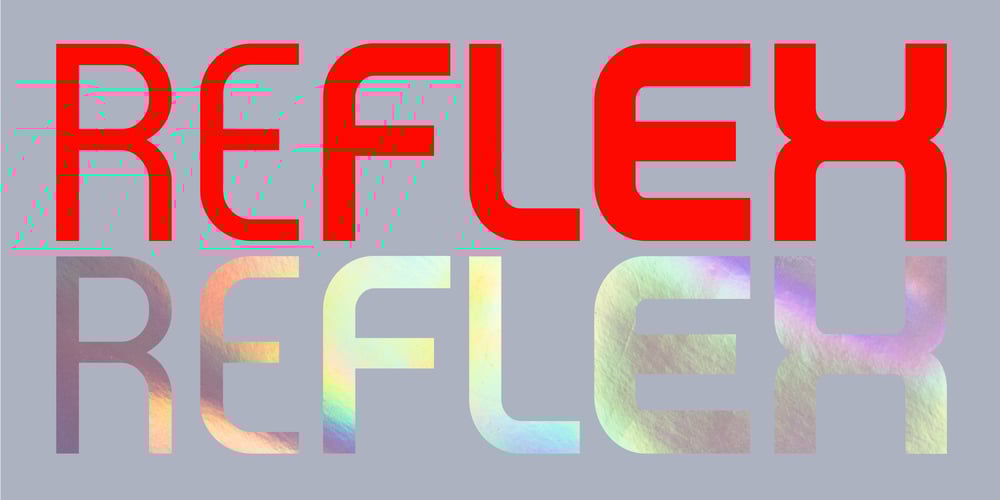
Reflex Font Family was designed by Alejandro Paul and published by Sudtipos. Reflex contains 19 styles and family package options. Reflex update: Now in 18 styles and variable version.Reflex was designed as an alternative to many overused types found on the packaging of pop culture products. Taking its inspiration from Bauhaus design roots, even in its heavy weights it maintains a soft aesthetic that can transparently convey a message of newness and understanding, as well as clarity and evenness.The Reflex set comes with a wide range of linguistic support, at no extra charge, including characters for Central European, Cyrillic, Greek, Turkish and Baltic regions.